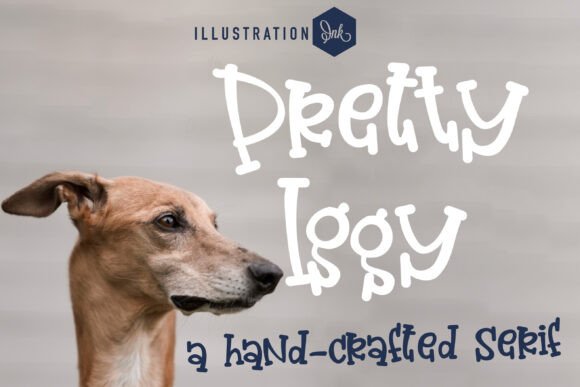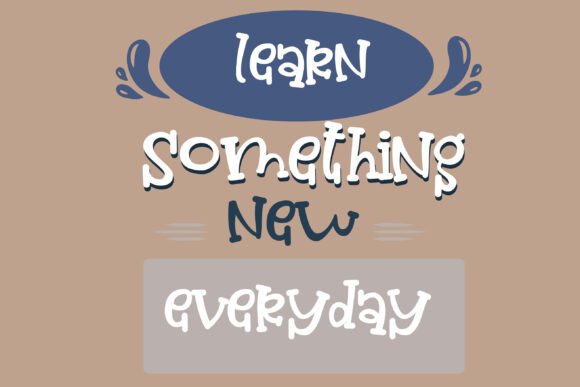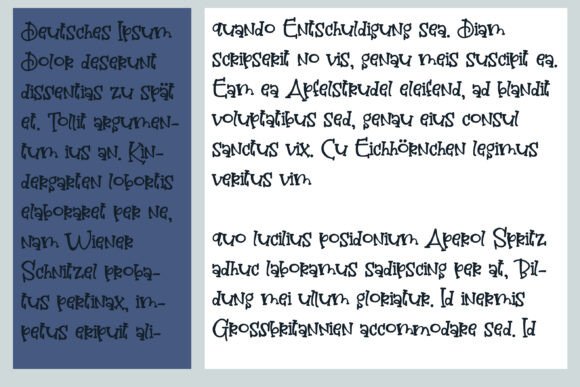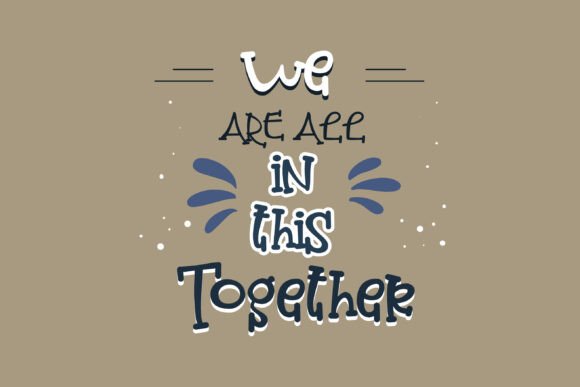
Pretty Iggy Font
About the Pretty Iggy Font
Introducing the Pretty Iggy Font, a beautifully crafted typeface designed to elevate your creative projects. This hand-crafted font is a whimsical print with hand-crafted slab serifs throughout.
Bold version included.
Pretty Iggy Font is ideally suited for headlines, short text blocks on posters or invitations, and branding elements requiring a playful yet sophisticated touch. Its whimsical nature makes it less suitable for body text or UI elements where readability over extended lengths is crucial. The hand-crafted feel might also clash with highly technical or corporate branding.
This font’s personality is best described as bold and friendly, with a hint of vintage charm. To complement this, consider pairing it with a clean sans-serif like Lato for body text or a more geometric sans-serif such as Futura for a modern contrast. For a more luxurious feel, a classic serif like Garamond could also work well.
Avoid pairing it with overly ornate scripts, as this could create visual clutter and detract from Pretty Iggy’s unique charm. The bold version is particularly effective for emphasizing key words or phrases within a design.
Pretty Iggy Font Usage Examples
Pretty Iggy Font Example